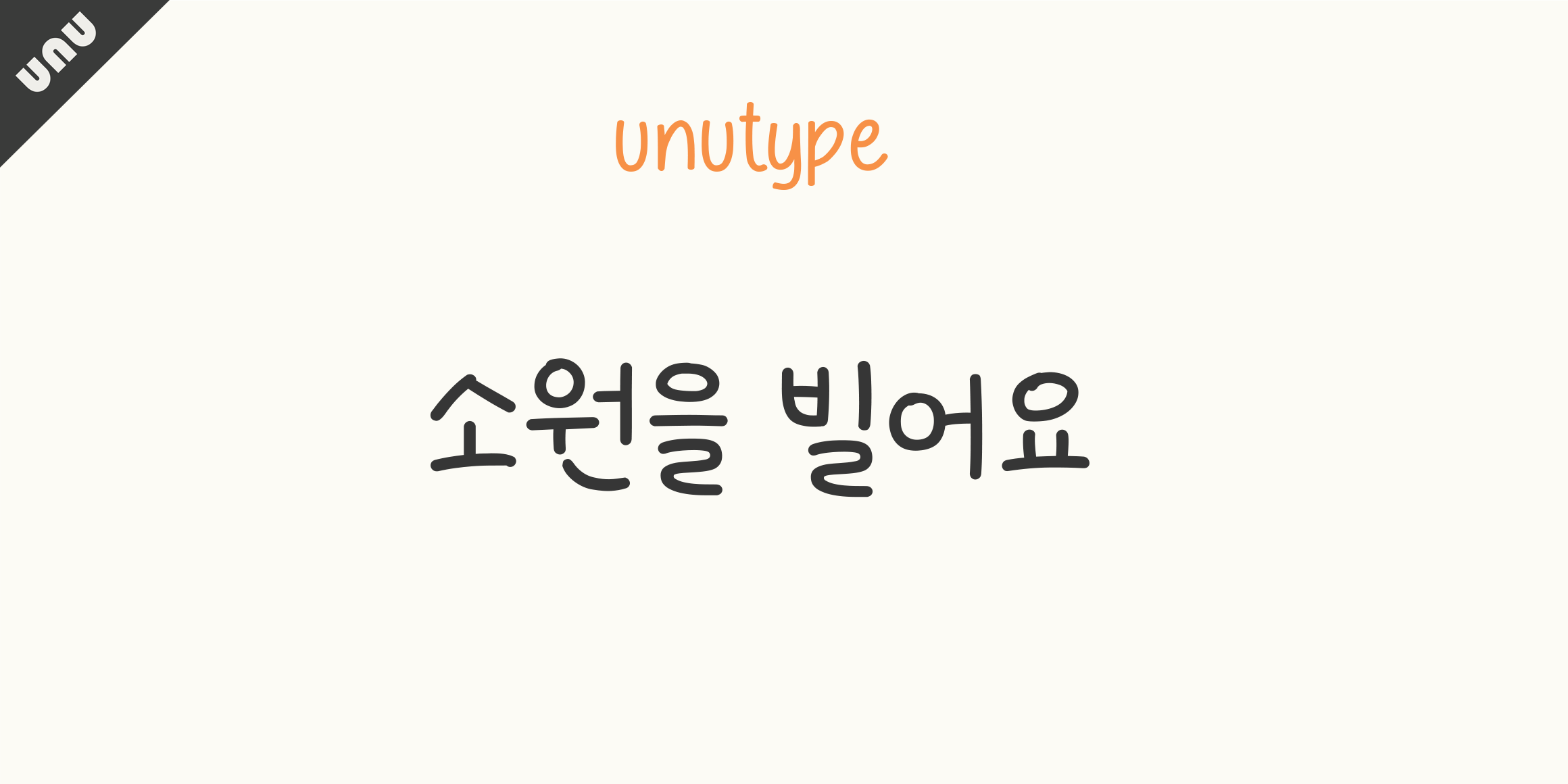
A sense of freedom was expressed by designing lines with a sense of rhythm, and the letter 'ㅇ' was slanted to enhance individuality.
This font is designed with large initial consonants to give the impression that it was cutely handwritten by a child.
- 210 산골짜기 / 210 Sangoljjagi